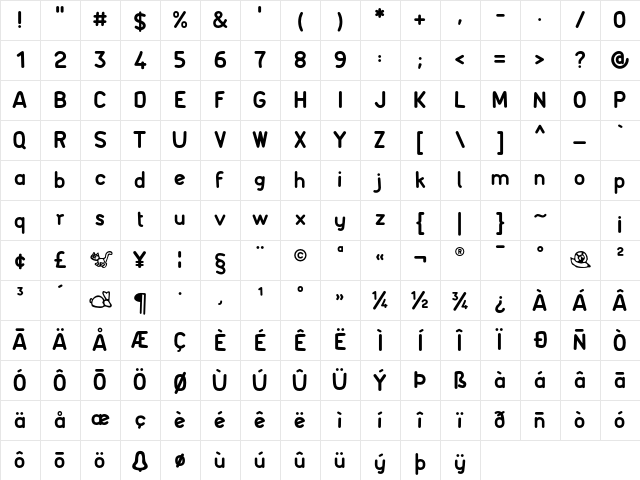
Complete FontSoupGerman Boiled glyph index. Displaying only characters natively supported by FontSoupGerman Boiled font.
FontSoupGerman is a composed and adaptable typeface that performs quietly and consistently across a wide range of design contexts.